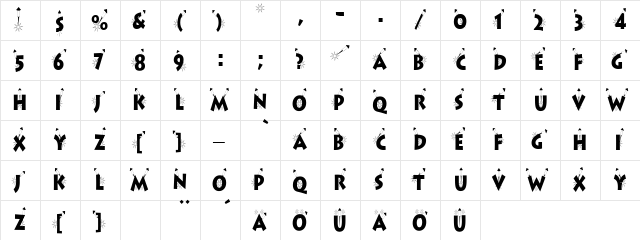
Apollo13Condensed Regular
Design Context for Apollo13Condensed Typeface
Apollo13Condensed is a composed and adaptable typeface that performs quietly and consistently across a wide range of design contexts. The condensed width makes it efficient for tight spaces without sacrificing legibility.